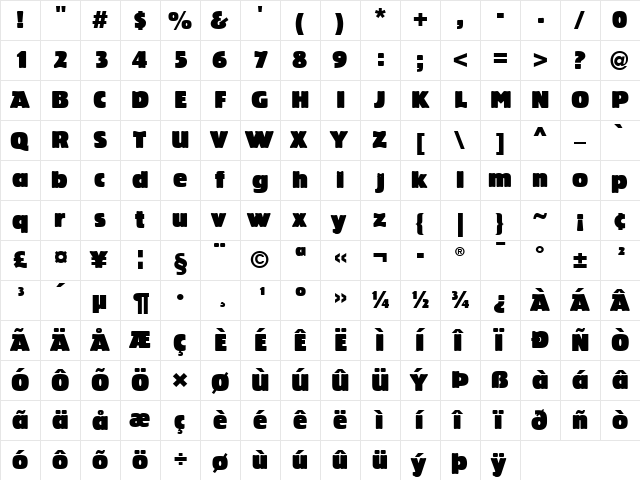
LTBariton Medium
Design Context for LTBariton Typeface
LTBariton takes a measured approach to typography — its balanced proportions and neutral character make it a reliable workhorse for both digital and print work.